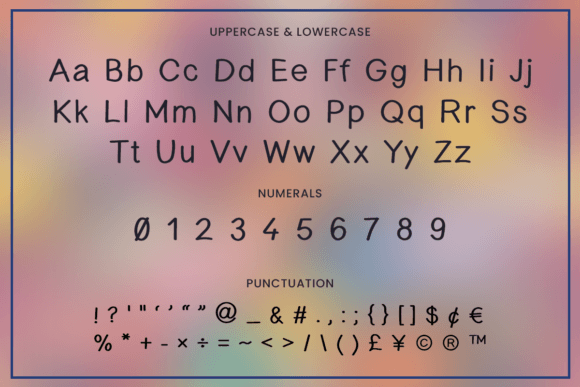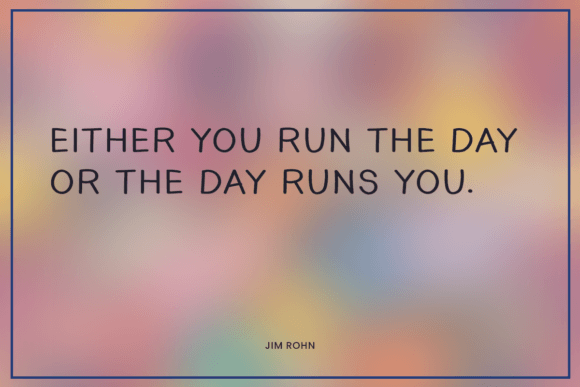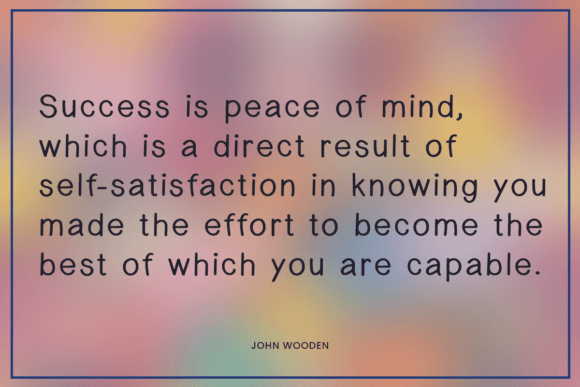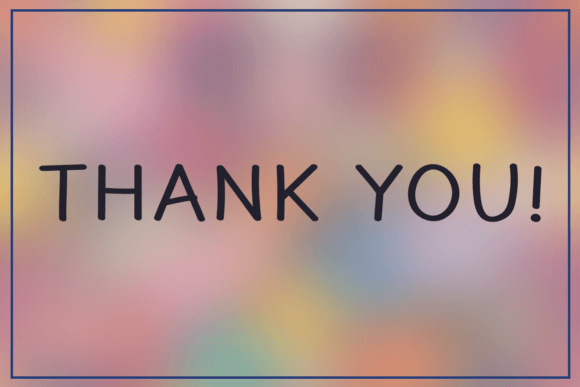
Introducing Fiume Minimalist: The Ultimate Modern Typeface for the Digital Age
In the world of typography, a new font has emerged that embodies the perfect blend of modern sophistication and approachable elegance. Meet Fiume Minimalist, a contemporary typeface specifically designed for the digital age. With its precise geometric shapes and subtle organic curves, Fiume Minimalist is poised to revolutionize the way we approach typography in branding, editorial design, and digital interfaces.
The Design Philosophy Behind Fiume Minimalist
Fiume Minimalist’s design is rooted in the principles of minimalism, where every element serves a purpose. The font’s creator meticulously crafted each glyph to strike a balance between clean lines, geometric shapes, and subtle curves. This thoughtful approach results in a typeface that exudes sophistication while remaining approachable and legible.
One of the standout features of Fiume Minimalist is its versatility. The font seamlessly adapts to various design applications, from display text to body text, making it an excellent choice for a wide range of projects. Whether you’re working on branding, editorial design, or digital interfaces, Fiume Minimalist is up to the task.
Key Features of Fiume Minimalist
- Clean Geometric Shapes: Fiume Minimalist’s geometric shapes provide a solid foundation for the font’s modern aesthetic. Each shape has been carefully crafted to ensure optimal readability and visual harmony.
- Subtle Organic Curves: The subtle organic curves in Fiume Minimalist add a touch of elegance and sophistication, setting it apart from more traditional sans-serif fonts.
- Multiple Weights and Styles: Fiume Minimalist comes in a range of weights and styles, allowing designers to experiment with different looks and feels while maintaining a consistent visual identity.
- Optimal Readability: Every glyph in Fiume Minimalist has been meticulously designed to ensure optimal readability, whether on screens or in print.
Applications of Fiume Minimalist
Fiume Minimalist’s versatility makes it an excellent choice for a wide range of design applications. Here are just a few examples:
- Branding: Use Fiume Minimalist to create a modern and sophisticated brand identity that stands out in a crowded market.
- Editorial Design: Fiume Minimalist’s elegant lines and precise shapes make it perfect for editorial design, from magazine layouts to book typography.
- Digital Interfaces: The font’s clean design and optimal readability make it an excellent choice for digital interfaces, from mobile apps to website typography.
Why Choose Fiume Minimalist?
In a world where typography plays a crucial role in shaping our visual landscape, Fiume Minimalist stands out as a beacon of modern sophistication. Here are just a few reasons why designers and crafters should consider adding Fiume Minimalist to their toolkit:
- Timeless Aesthetic: Fiume Minimalist’s design ensures that it will remain a relevant and stylish choice for years to come.
- Creativity Unleashed: With its range of weights and styles, Fiume Minimalist invites designers to experiment and push the boundaries of typography.
- Exceptional Readability: The font’s meticulous design ensures that it remains readable even in the most demanding applications.
In conclusion, Fiume Minimalist is a game-changing typeface that is poised to revolutionize the world of typography. Its perfect blend of modern sophistication and approachable elegance makes it an excellent choice for designers and crafters looking to elevate their design work. With its versatility, range of weights and styles, and exceptional readability, Fiume Minimalist is sure to become a staple in the design community.